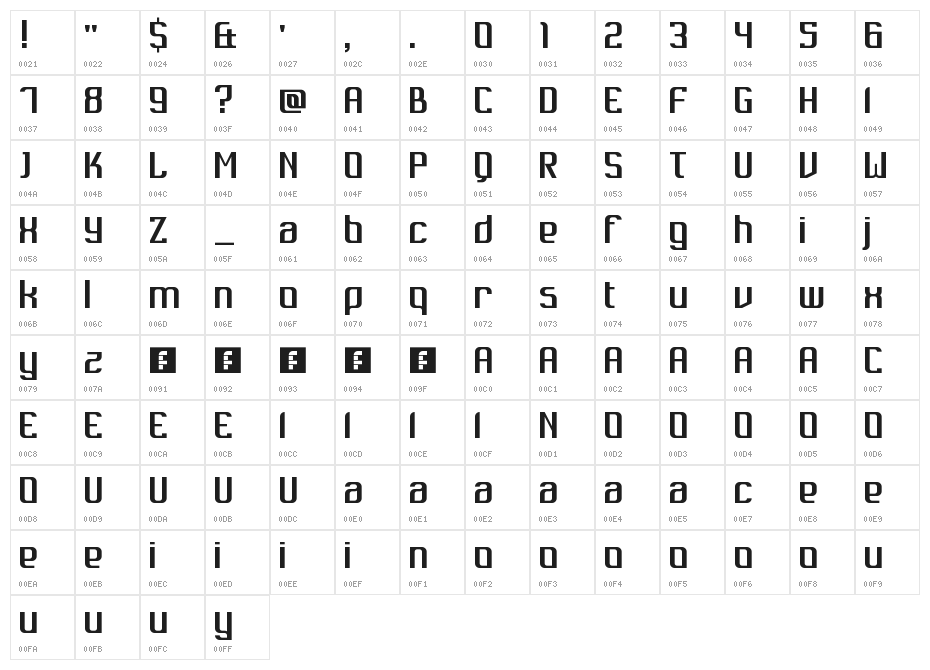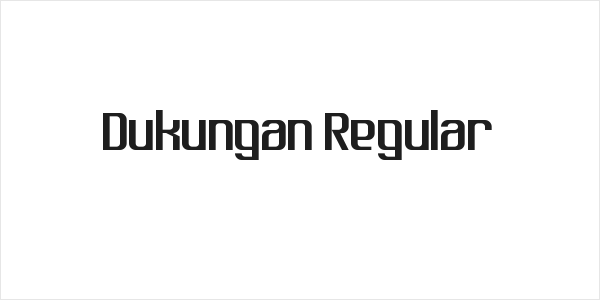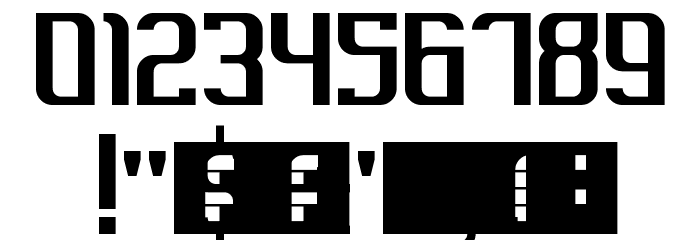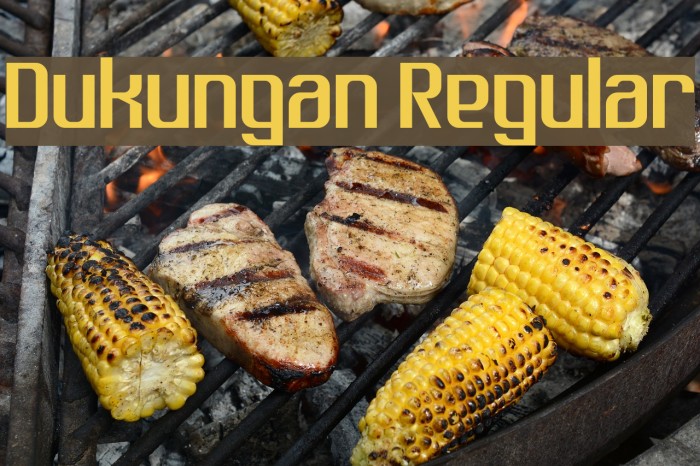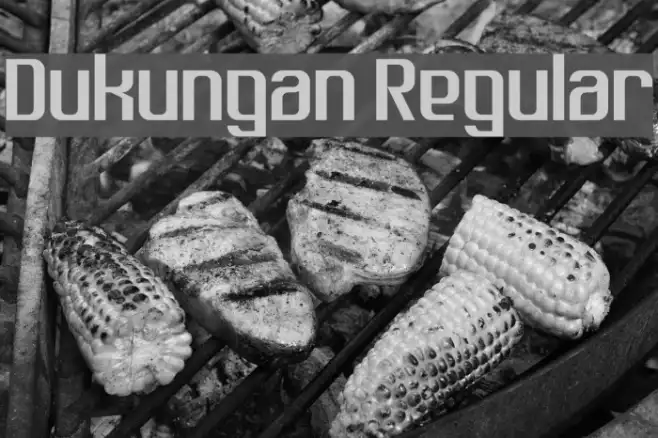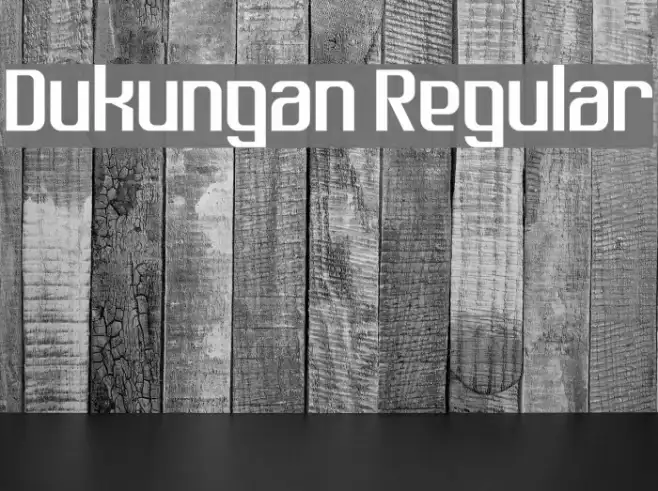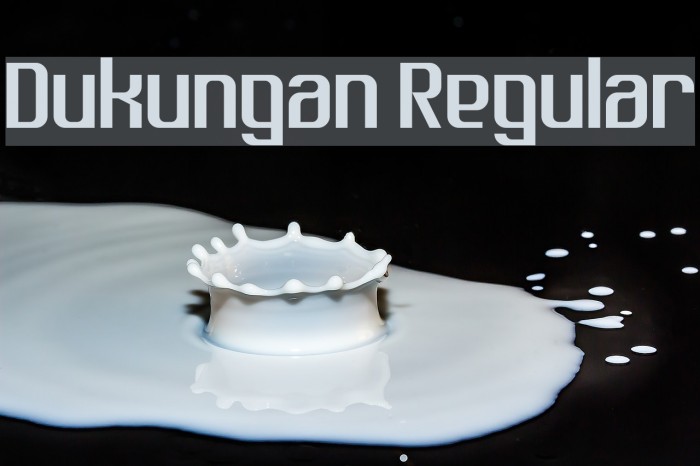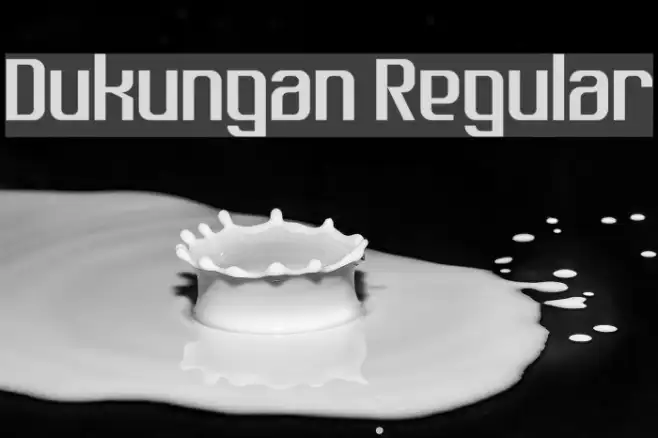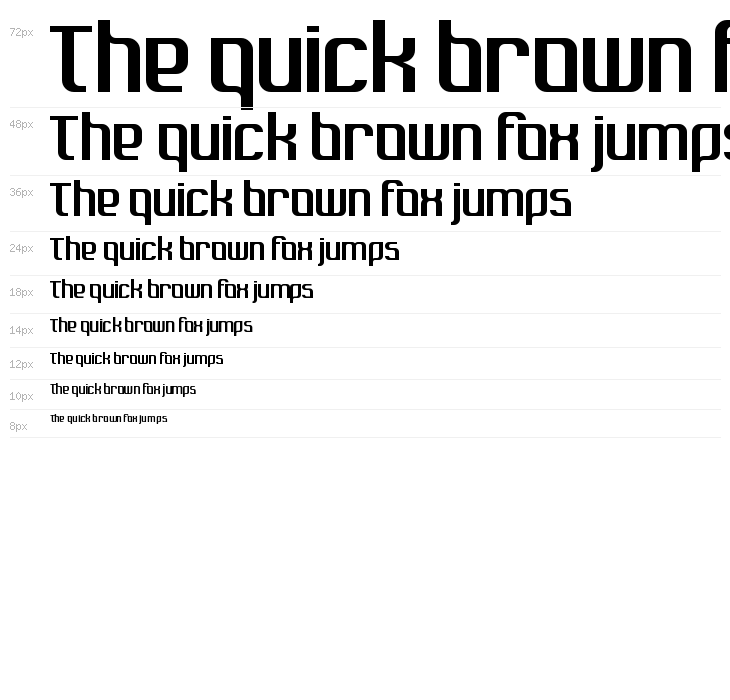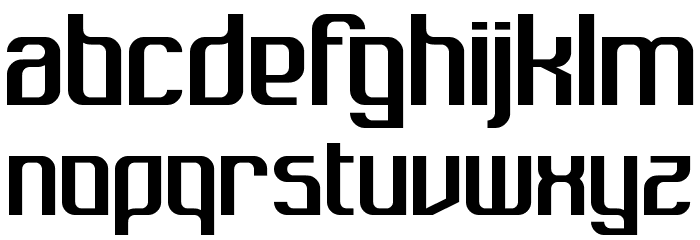
Dukungan Regular Font
Dukungan Regular Description
This font features a bold and geometric design with a modern aesthetic. The characters are constructed with clean, straight lines and sharp angles, giving it a futuristic and industrial feel. The uppercase letters are uniform in height, while the lowercase letters maintain a consistent style with slightly rounded edges. The numerals are distinct and align well with the overall design, making them easily readable. Special characters are designed to match the boldness and geometric nature of the font, ensuring a cohesive look across all elements.
| Proposed Projects | Ideal for technology branding, futuristic posters, and modern logo designs. |